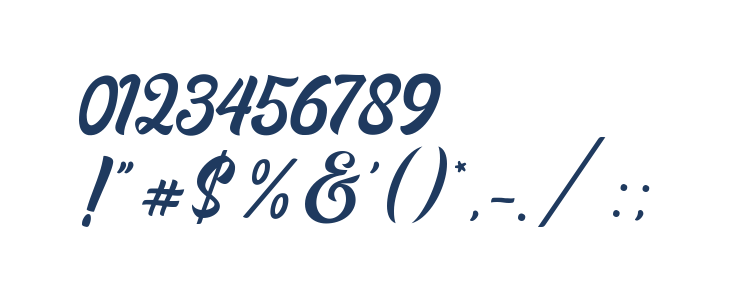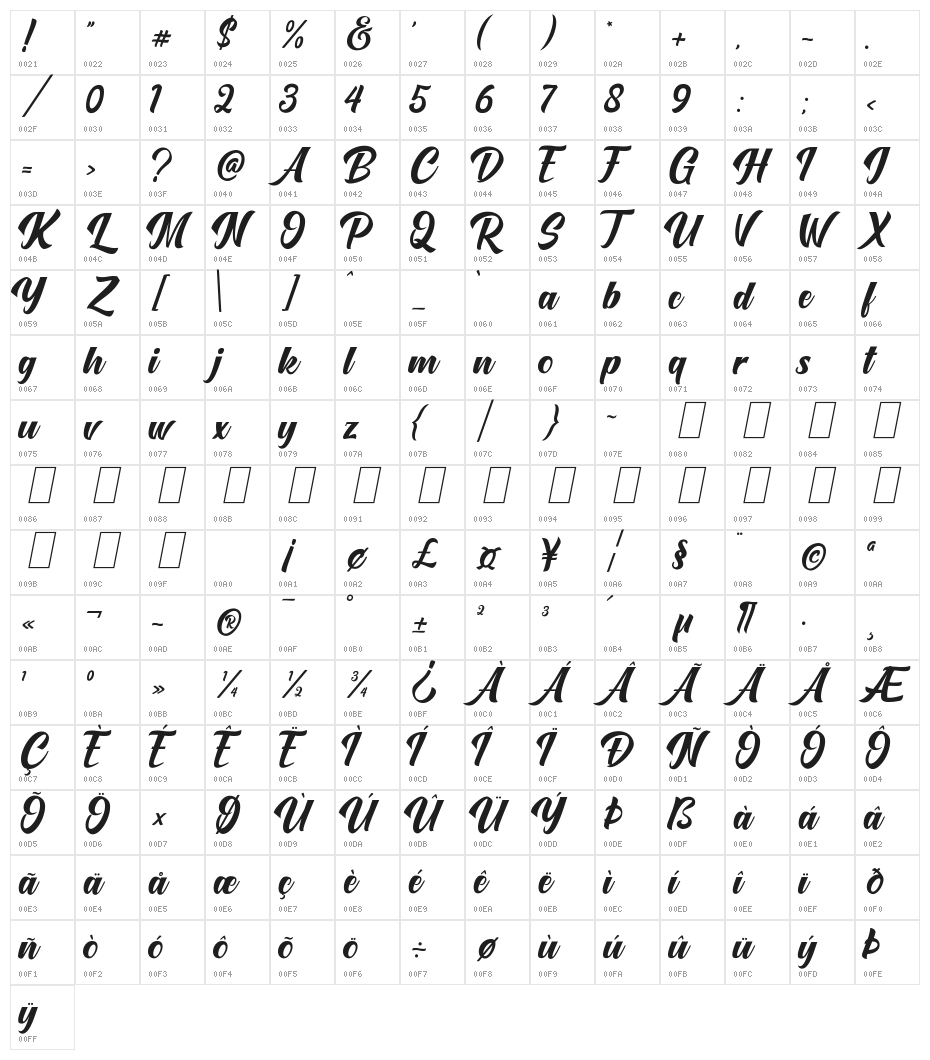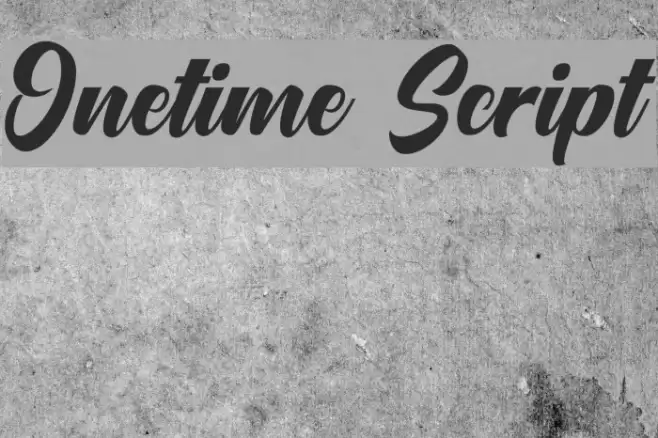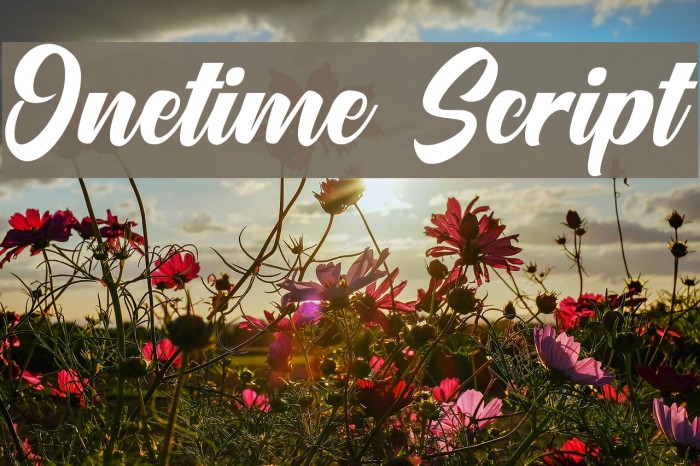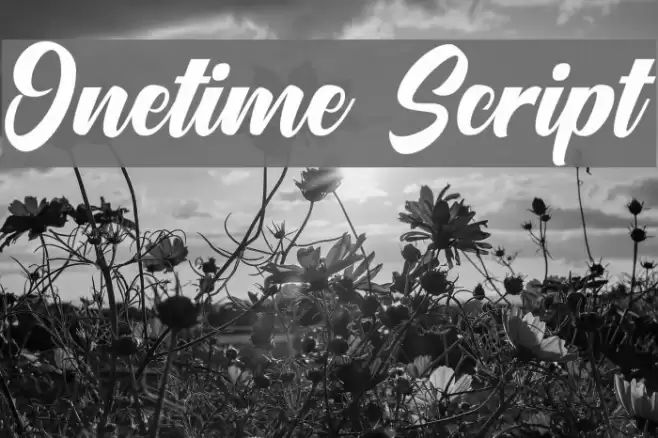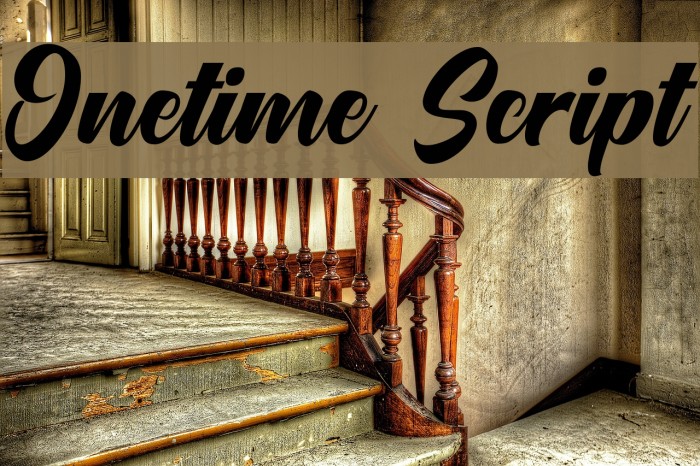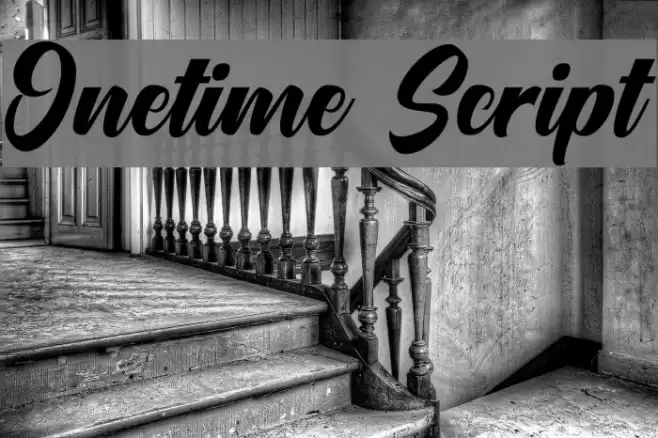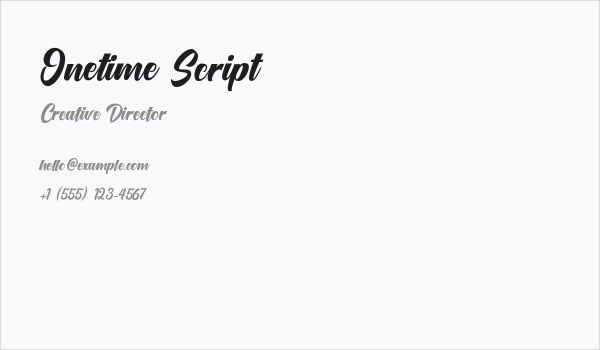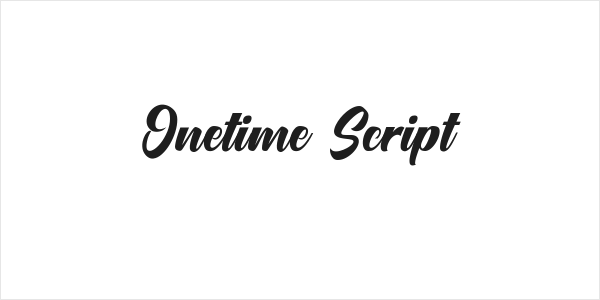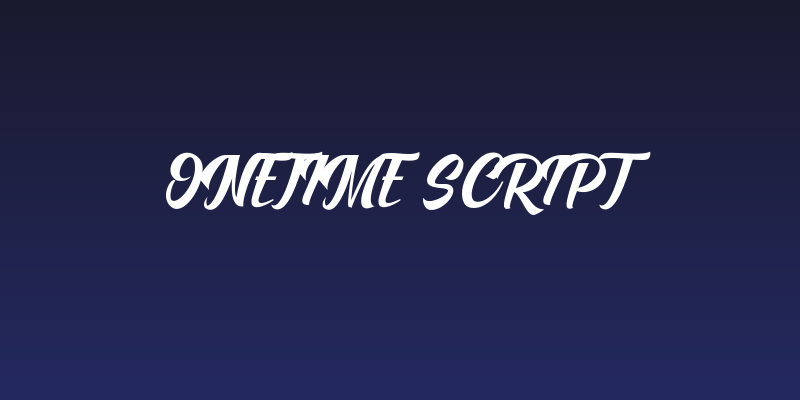
Onetime Script Font
Onetime Script Description
This font exudes a dynamic and energetic style, characterized by its flowing script and bold presence. The letters are interconnected, creating a sense of movement and fluidity. The uppercase letters are slightly more angular, while the lowercase letters maintain a smooth, cursive flow. Numbers and special characters are designed to match the overall aesthetic, ensuring consistency throughout. The strokes are thick, providing a strong visual impact, and the overall appearance is both elegant and assertive.